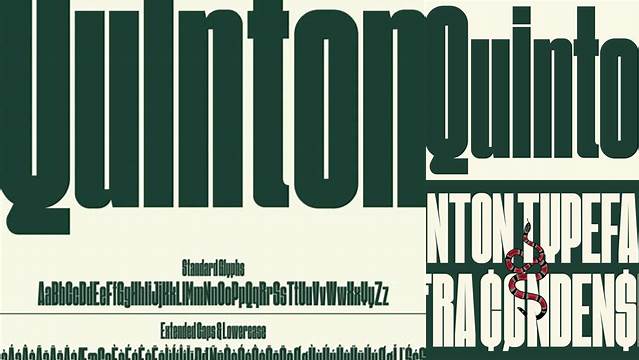
Hey everyone! ๐ Today, we're diving headfirst into the world of typography, specifically focusing on the Quinton Ultra Condensed Font! And the best part? You can get a free download! We're going to explore everything you need to know about this sleek and versatile font, from its design and usage to where you can snag that free download. Get ready to level up your design game!
1. Understanding the Quinton Ultra Condensed Font: What Makes It Special?
So, what exactly is the Quinton Ultra Condensed Font? Well, it's a modern, highly condensed typeface known for its incredibly slim and space-saving design. Think of it as the superhero of fonts when you're tight on space! This font is perfect for headlines, titles, and anywhere you need to pack a punch with your words without taking up a ton of real estate. Its ultra-condensed nature allows you to fit more text horizontally, making it ideal for posters, websites, and any design where space is at a premium. The design of Quinton Ultra Condensed usually features clean lines and a contemporary aesthetic, making it a great choice for projects aiming for a minimalist or modern look. Its legibility is surprisingly good, even at smaller sizes, which is a testament to the careful design of the letterforms. Unlike some ultra-condensed fonts, Quinton Ultra Condensed often avoids overly stylized or distracting elements, allowing the words to take center stage. This understated elegance makes it a versatile choice for a wide range of applications, from corporate branding to creative projects. The font's ability to convey information efficiently while maintaining a sense of style is a key reason for its popularity among designers and creatives. Choosing Quinton Ultra Condensed is choosing a font that prioritizes both form and function, making it a valuable asset in any designer's toolkit. The subtle details in the letterforms often give it a unique personality, setting it apart from other, more generic condensed fonts. This individuality can add a touch of sophistication and visual interest to any design project. Whether you're designing a website, a print advertisement, or a social media graphic, Quinton Ultra Condensed can help you create a visually appealing and highly effective communication piece. The font's inherent qualities make it a reliable option for communicating your message clearly and effectively. So, if you're looking for a font that's both stylish and space-efficient, the Quinton Ultra Condensed Font is definitely worth exploring!
2. Key Features and Design Elements of the Quinton Ultra Condensed Font
Let's get into the nitty-gritty, shall we? The Quinton Ultra Condensed Font boasts several key features that contribute to its unique appeal. Firstly, its ultra-condensed width is the most obvious characteristic. This means the letters are squeezed together horizontally, allowing for more text to fit within a given space. This is incredibly useful for headlines, subheadings, and any area where space is limited. Secondly, the font often has a geometric or sans-serif style, lending it a modern and clean look. This design choice makes it easily readable and versatile across various design contexts. Thirdly, the weight variations (like regular, bold, and sometimes even italics) offer flexibility. Designers can use these variations to emphasize certain words or phrases, adding visual hierarchy and interest to the text. The font's design often includes carefully considered details that enhance readability, despite its condensed nature. The letterforms are usually designed with a high x-height, meaning the lowercase letters are taller relative to the uppercase letters, aiding in legibility. Additionally, the spacing between letters and words is often optimized to prevent the text from appearing too cramped or difficult to read. The designers of Quinton Ultra Condensed typically pay close attention to the curves and angles of the letters, ensuring that they flow well together and are visually appealing. The use of this font is not only practical in terms of space-saving but also can add a touch of sophistication and modernity to a design project. The design choices made by the creators of the font aim at optimizing both the readability and the aesthetic appeal. Its design usually offers a wide variety of characters, including numbers and punctuation marks, ensuring that the font can be used in a comprehensive way. Designers can often find multilingual support within the font, expanding its usability. The combination of these features makes the Quinton Ultra Condensed Font a powerful tool for creating compelling visual communications.
3. Best Uses for the Quinton Ultra Condensed Font in Design Projects
Alright, where does this font shine? The Quinton Ultra Condensed Font is incredibly versatile, but it truly excels in specific design applications. Its condensed nature makes it perfect for headlines and titles, where you want to grab attention without taking up too much space. Think website headers, poster titles, and magazine covers โ places where a bold statement is needed. Itโs also fantastic for subheadings and short descriptions, where you want to provide information clearly and concisely. Because the font is so space-efficient, itโs also a great choice for data-driven design like charts or infographics. You can fit a lot of information into a small area without compromising readability. Another area where it thrives is in branding and logos. Its clean and modern look can give a brand a sophisticated and contemporary feel. You might also find it used in product packaging to save space on labels or boxes while still conveying important information. If you're working on a mobile app or website with limited screen space, Quinton Ultra Condensed can be a lifesaver, allowing you to fit more content on the screen without sacrificing readability. This is because the font allows more characters per line, making it ideal for user interfaces where space is at a premium. Moreover, the font can also be used in print materials such as brochures or flyers, especially if the design needs to accommodate a lot of text within a limited space. When it comes to designing any form of communication, the Quinton Ultra Condensed Font's ability to maximize space while maintaining clarity makes it a superb option. In short, if you need to squeeze text into a small space, the Quinton Ultra Condensed Font is your go-to!